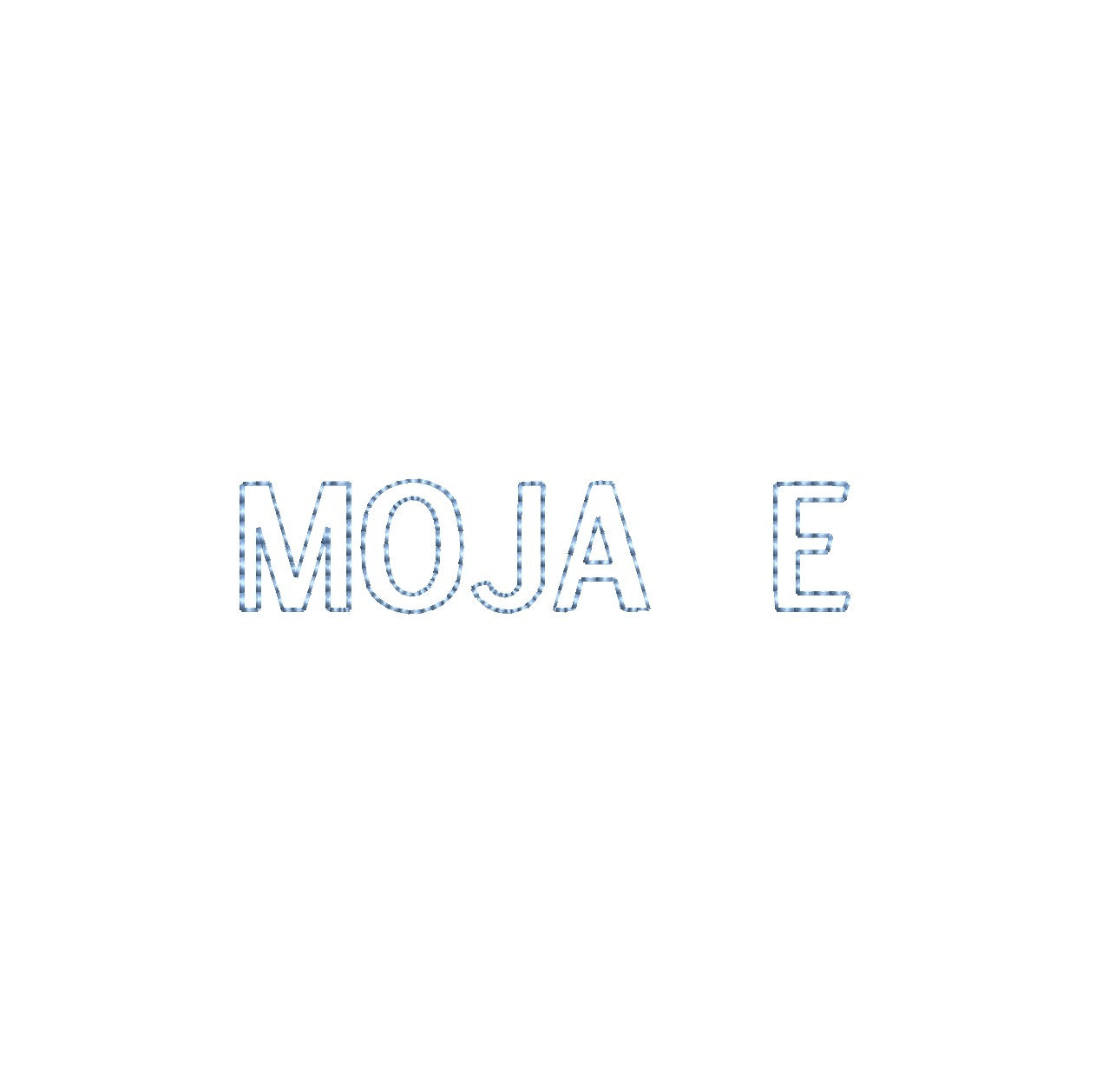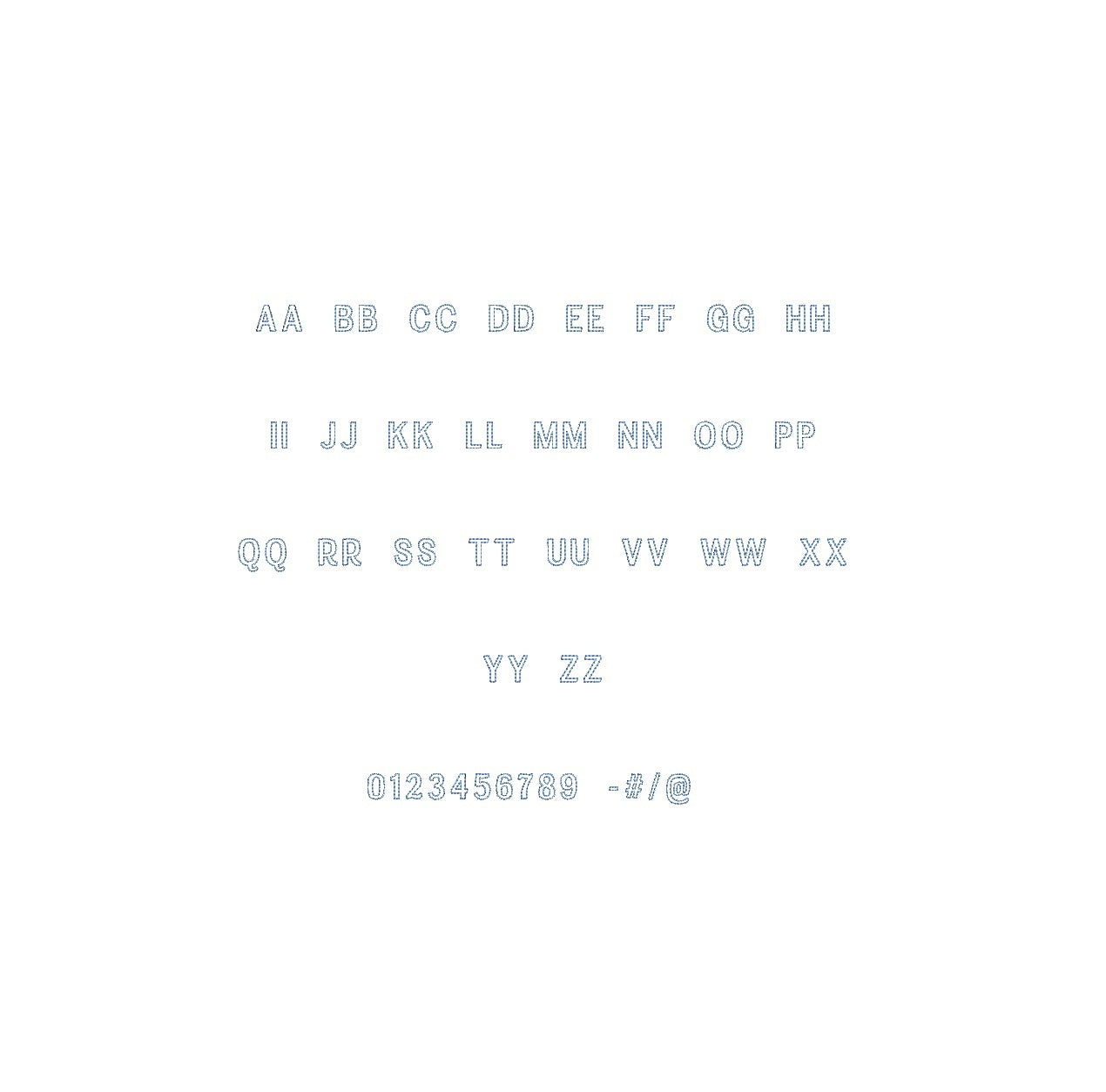
Elevate your embroidery with the Moja E Bean Outline ESA font. Tailored for Wilcom Studio e4.5.6 and Hatch 3 versions and up, this font seamlessly combines elegance and precision. Infuse your designs with a unique aesthetic, perfect for monograms and embellishments. Experience seamless compatibility for exceptional results. Unleash a new level of stitching finesse with the Moja E Bean Outline ESA font – your key to captivating designs that radiate sophistication. Transform your creations into embroidery masterpieces that showcase your style and creativity. Elevate your projects and make them truly exceptional with the Moja E Bean Outline ESA font.